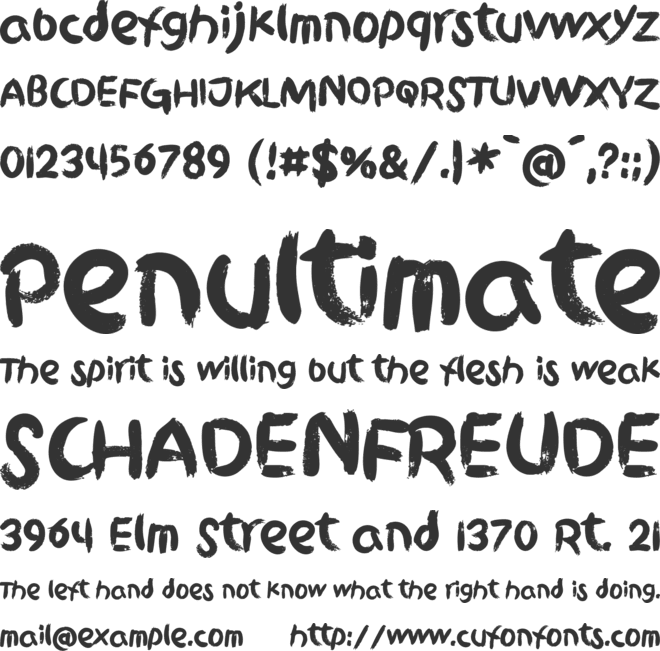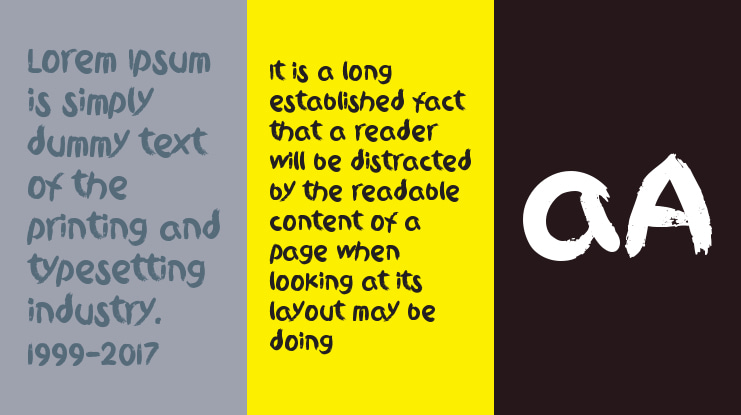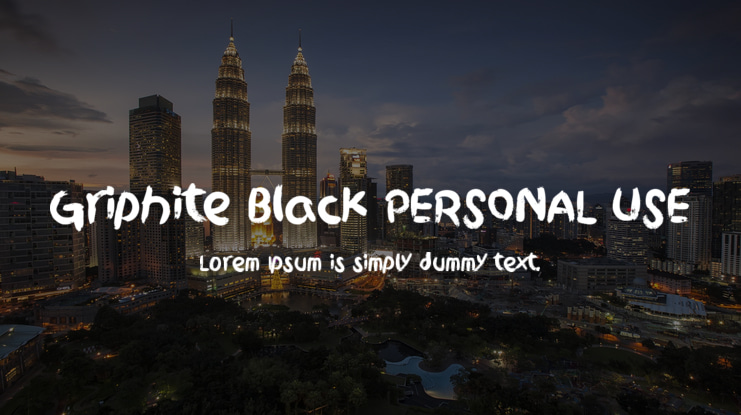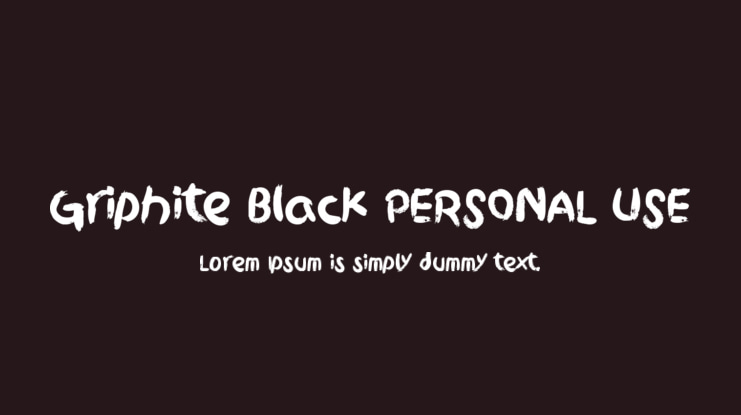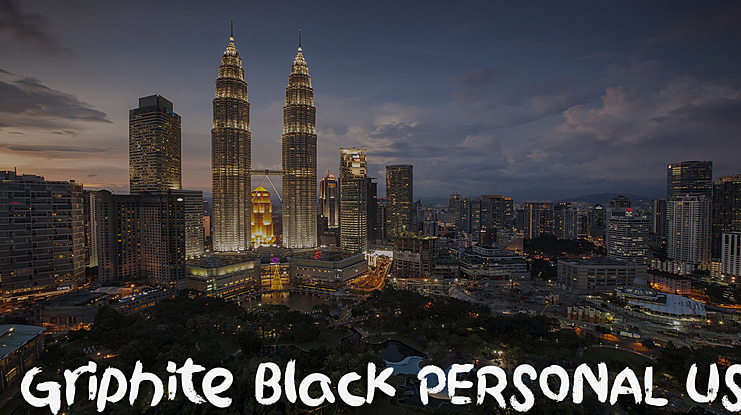
Griphite Black PERSONAL USE Font Family
Griphite is a brush typeface family in four styles. It is hand-drawn by Måns Grebäck with the use of paintbrush strokes. In its great detail, this typeface does look like true paint.
The font comes in Regular and Bold. It also includes a Drop typeface; a font with stylistic additions of drips to be used by itself or in combination with the normal style.